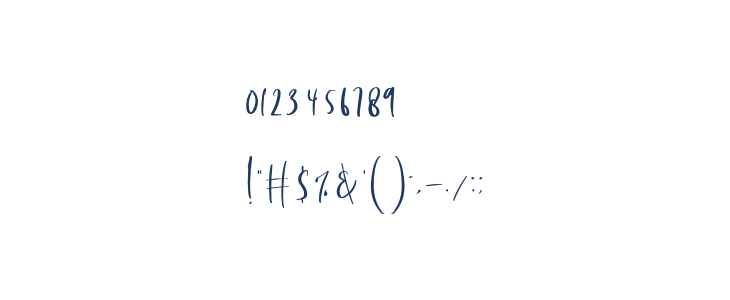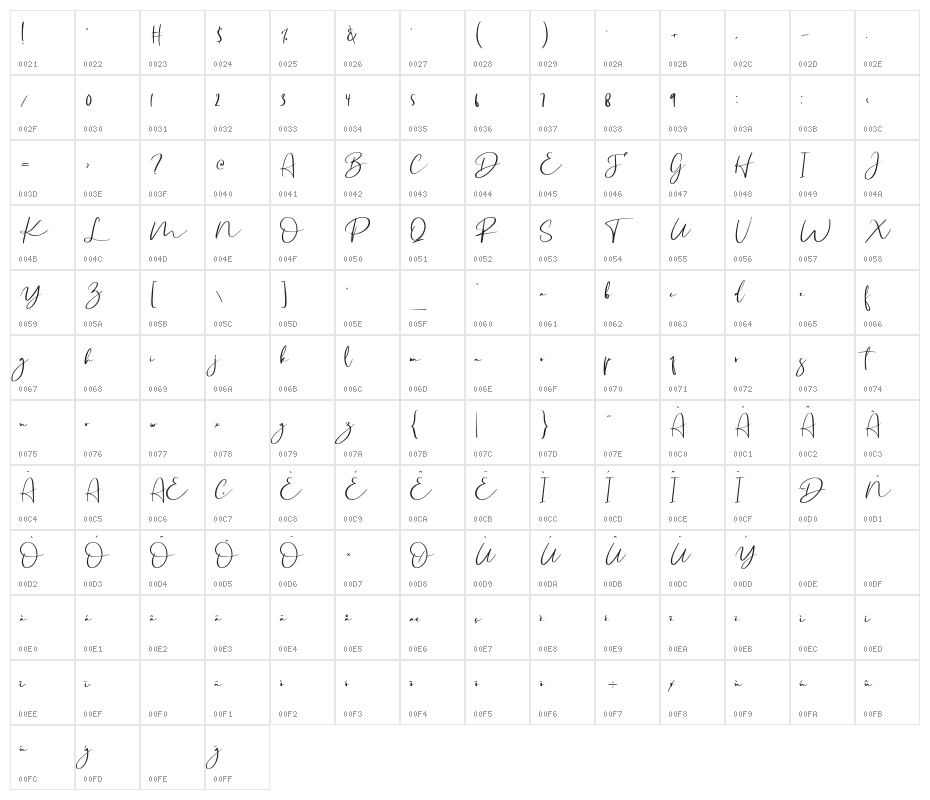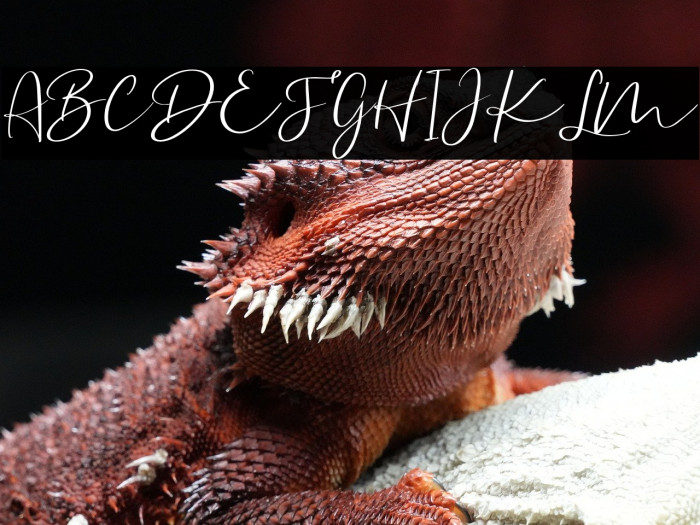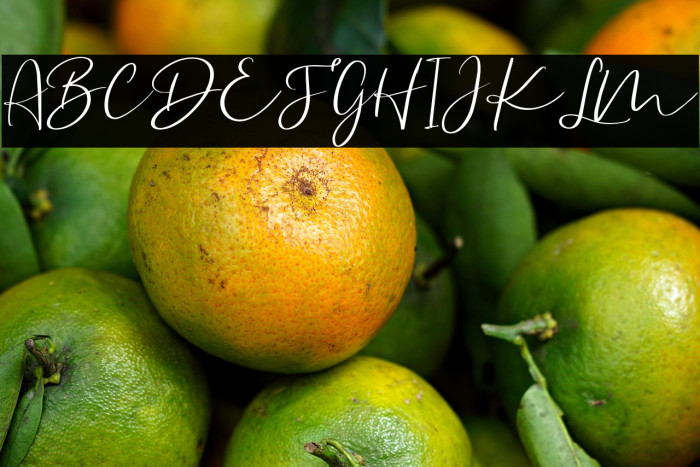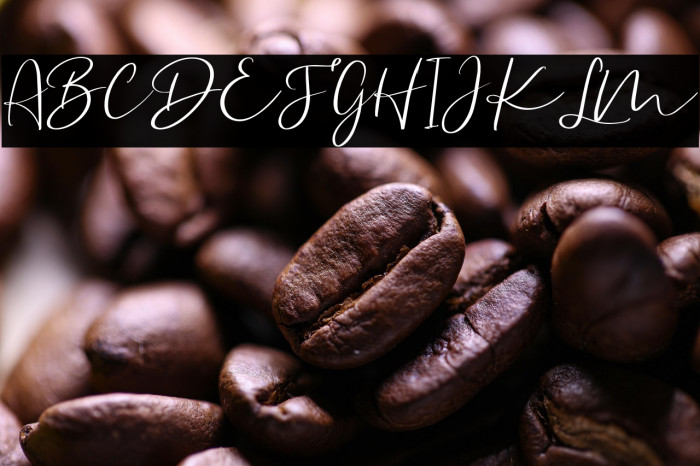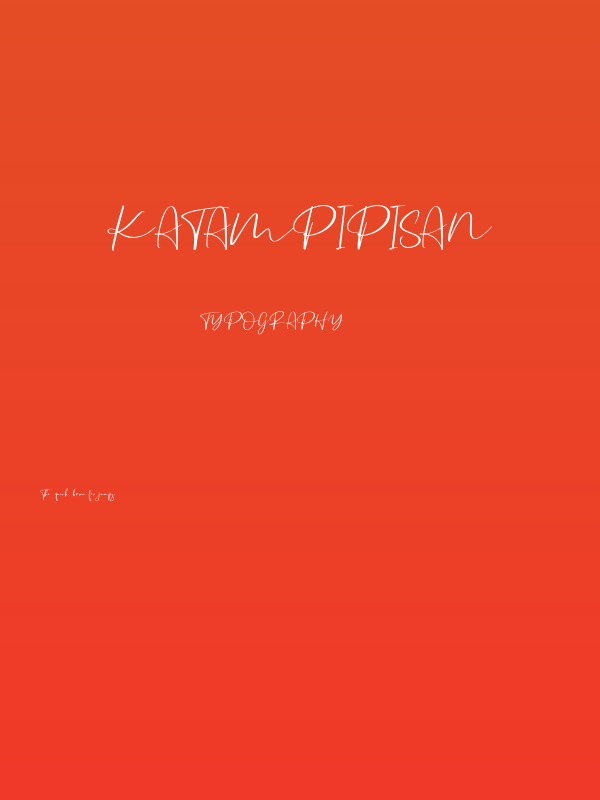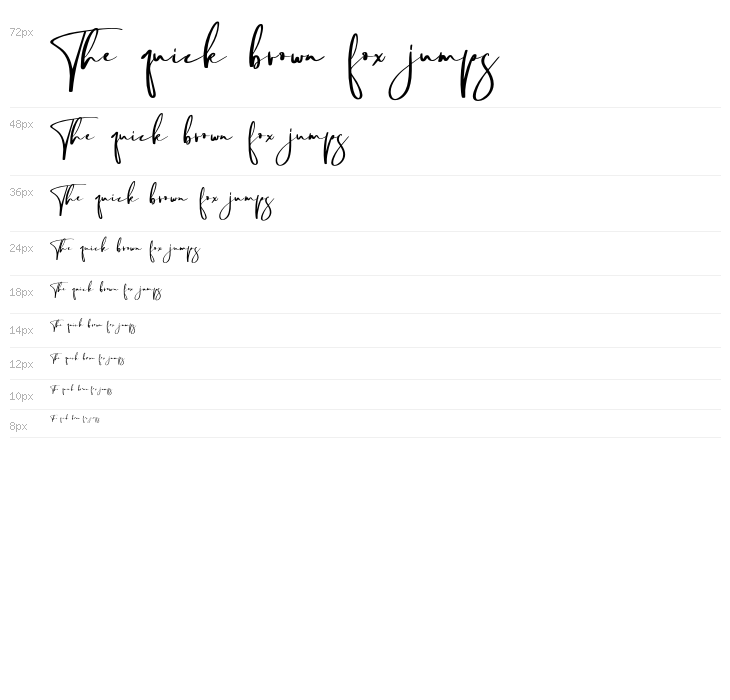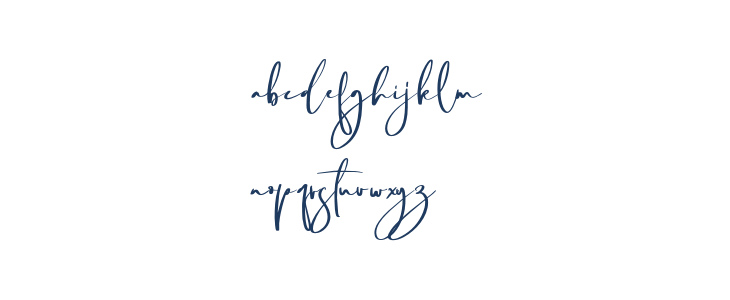
Katampipisan Font
Katampipisan Description
This font exhibits a flowing, cursive style with a handwritten appearance. The letters are elegantly connected, creating a sense of fluidity and movement. The uppercase letters are tall and slightly slanted, while the lowercase letters maintain a consistent flow with occasional loops and flourishes. The numbers and special characters are designed to match the overall aesthetic, with a playful yet sophisticated look. The strokes vary in thickness, adding a dynamic contrast that enhances readability while maintaining an artistic flair.
| Proposed Projects | Ideal for wedding invitations, greeting cards, branding projects, and elegant logos. |